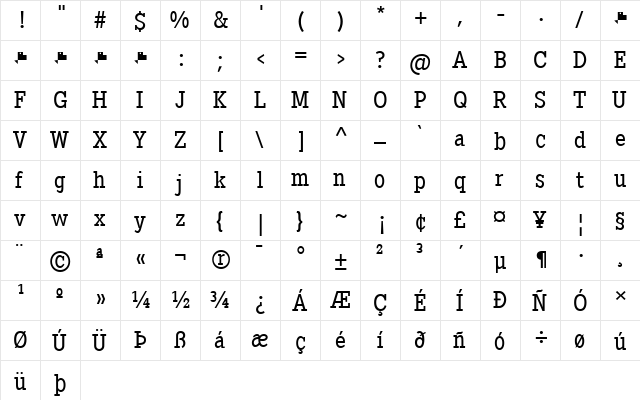
Pentay Book
Design Context for Pentay Typeface
Pentay offers clean, dependable letterforms without strong stylistic allegiance, making it a practical choice for designers who need flexibility.
Pro Tip: Use Pentay in both headline and body roles to test its range before committing to a single application.